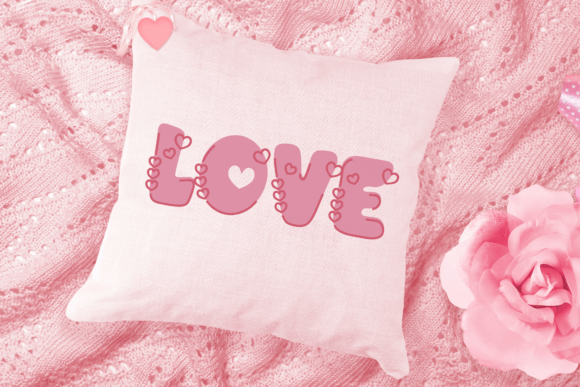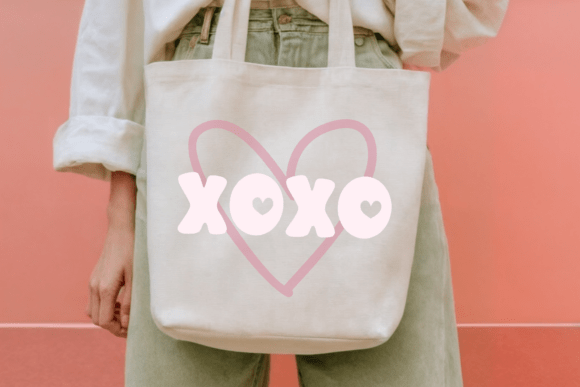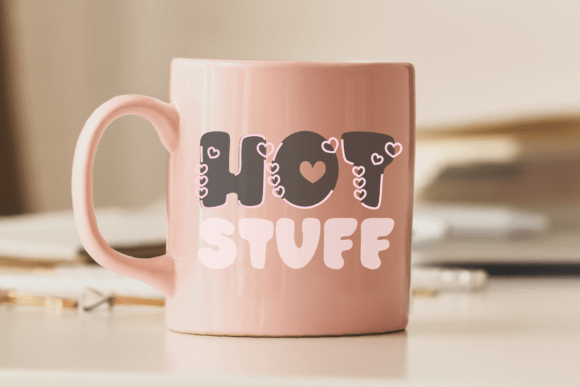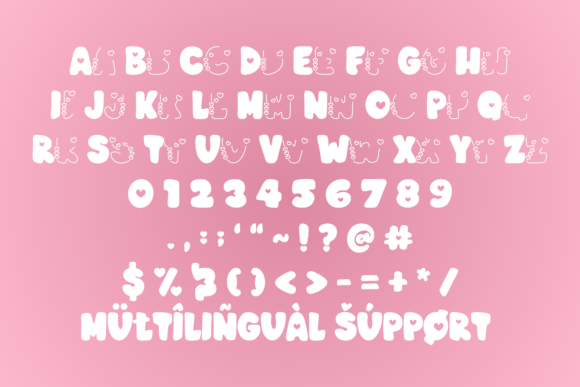
Introducing Heartdots Font: The Playful Love Font for Designers and Crafters
Are you looking for a font that can add a touch of whimsy and romance to your designs? Look no further than Heartdots Font! This playful love font features bold, rounded uppercase letters paired with a matching set of accent-style lowercase characters, making it perfect for a variety of creative projects.
What is Heartdots Font?
Heartdots Font is a unique and versatile font that combines bold, rounded uppercase letters with a matching set of accent-style lowercase characters. This combination gives you a fun and creative way to mix bubbly lettering with decorative accents in a single font. Whether you’re designing for Valentine’s Day, a romantic occasion, or just want to add a touch of whimsy to your project, Heartdots Font is the perfect choice.
Key Features of Heartdots Font
- Bold and Rounded Uppercase Letters: The uppercase letters in Heartdots Font are bold and rounded, making them perfect for headlines, titles, and other prominent text.
- Accent-Style Lowercase Characters: The lowercase characters in Heartdots Font are designed as accents, allowing you to add a decorative touch to your text.
- Playful and Whimsical: Heartdots Font has a playful and whimsical feel, making it perfect for designs that require a touch of personality.
- Perfect for Romantic Occasions: With its romantic and loving vibe, Heartdots Font is ideal for Valentine’s Day designs, wedding stationery, and other romantic projects.
Uses for Heartdots Font
Heartdots Font is a versatile font that can be used for a variety of creative projects, including:
- Valentine’s Day Designs: Add a touch of romance to your Valentine’s Day designs with Heartdots Font.
- Romantic Cards: Create beautiful and heartfelt cards for loved ones with Heartdots Font.
- Wedding Stationery: Use Heartdots Font to add a touch of whimsy and romance to your wedding stationery.
- Love-Themed Crafts: Heartdots Font is perfect for love-themed crafts, such as scrapbooking, DIY projects, and more.
- Stickers: Create adorable stickers with Heartdots Font for parties, gifts, or other special occasions.
- Sweet Branding: Use Heartdots Font to add a touch of personality to your brand and make it more relatable.
Benefits of Using Heartdots Font
Using Heartdots Font in your designs offers several benefits, including:
- Unique and Eye-Catching: Heartdots Font is a unique and eye-catching font that will make your designs stand out.
- Easy to Read: Despite its playful and whimsical feel, Heartdots Font is easy to read and understand.
- Versatile: Heartdots Font can be used for a variety of creative projects, making it a great addition to your font library.
- Time-Saving: With Heartdots Font, you can create beautiful and professional-looking designs in no time.
Tips for Using Heartdots Font
Here are some tips for using Heartdots Font in your designs:
- Experiment with Different Sizes: Experiment with different sizes to find the perfect balance for your design.
- Mix and Match: Mix and match uppercase and lowercase letters to create a unique and playful look.
- Use with Other Fonts: Use Heartdots Font with other fonts to create a contrasting look and add visual interest.
- Add Decorations: Add decorations, such as hearts or flowers, to enhance the romantic and whimsical feel of Heartdots Font.
Heartdots Font is a playful love font that is perfect for designers and crafters looking to add a touch of whimsy and romance to their projects. With its bold and rounded uppercase letters, accent-style lowercase characters, and versatile design, Heartdots Font is ideal for a variety of creative projects. Whether you’re designing for Valentine’s Day, a romantic occasion, or just want to add a touch of personality to your project, Heartdots Font is the perfect choice.